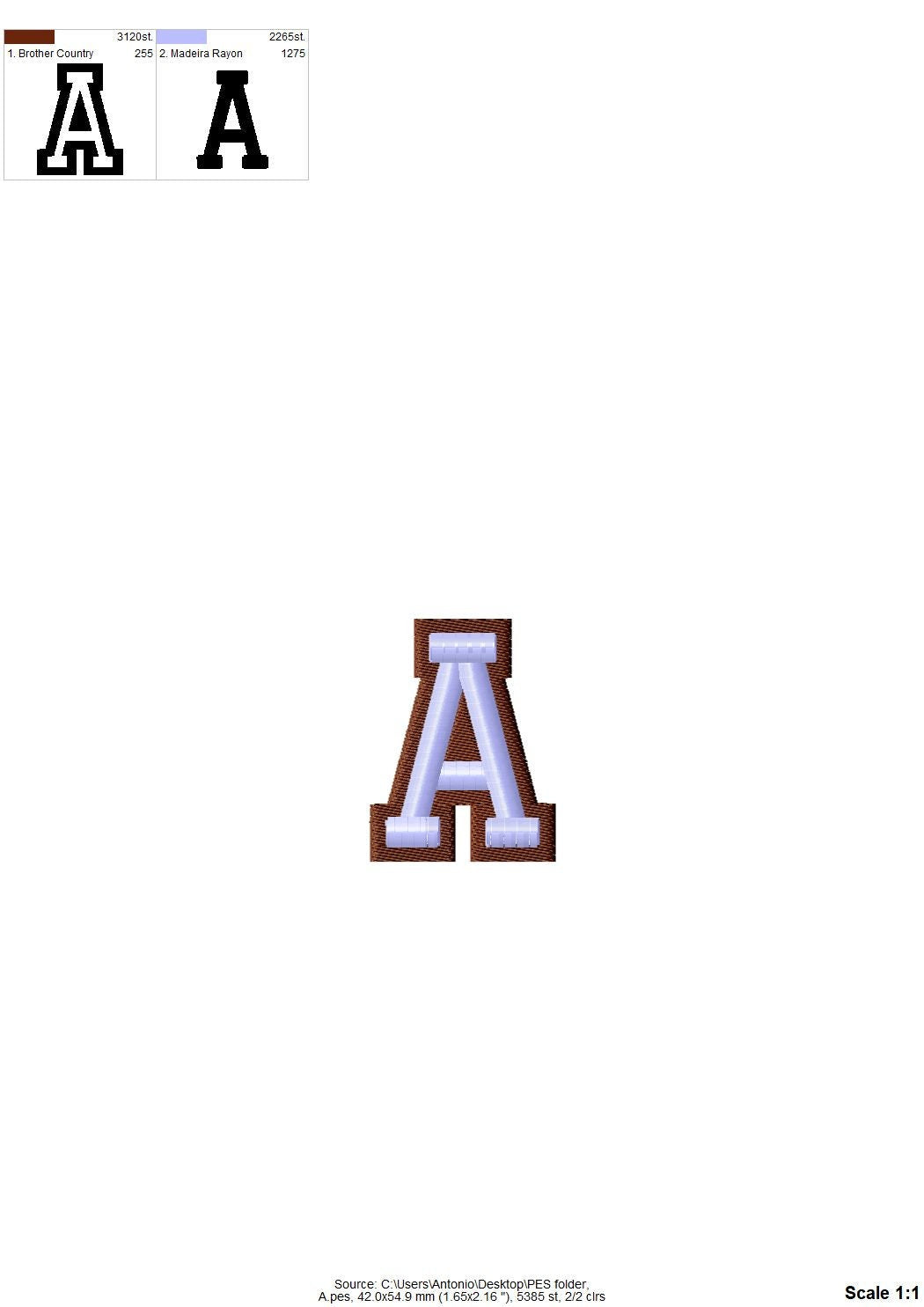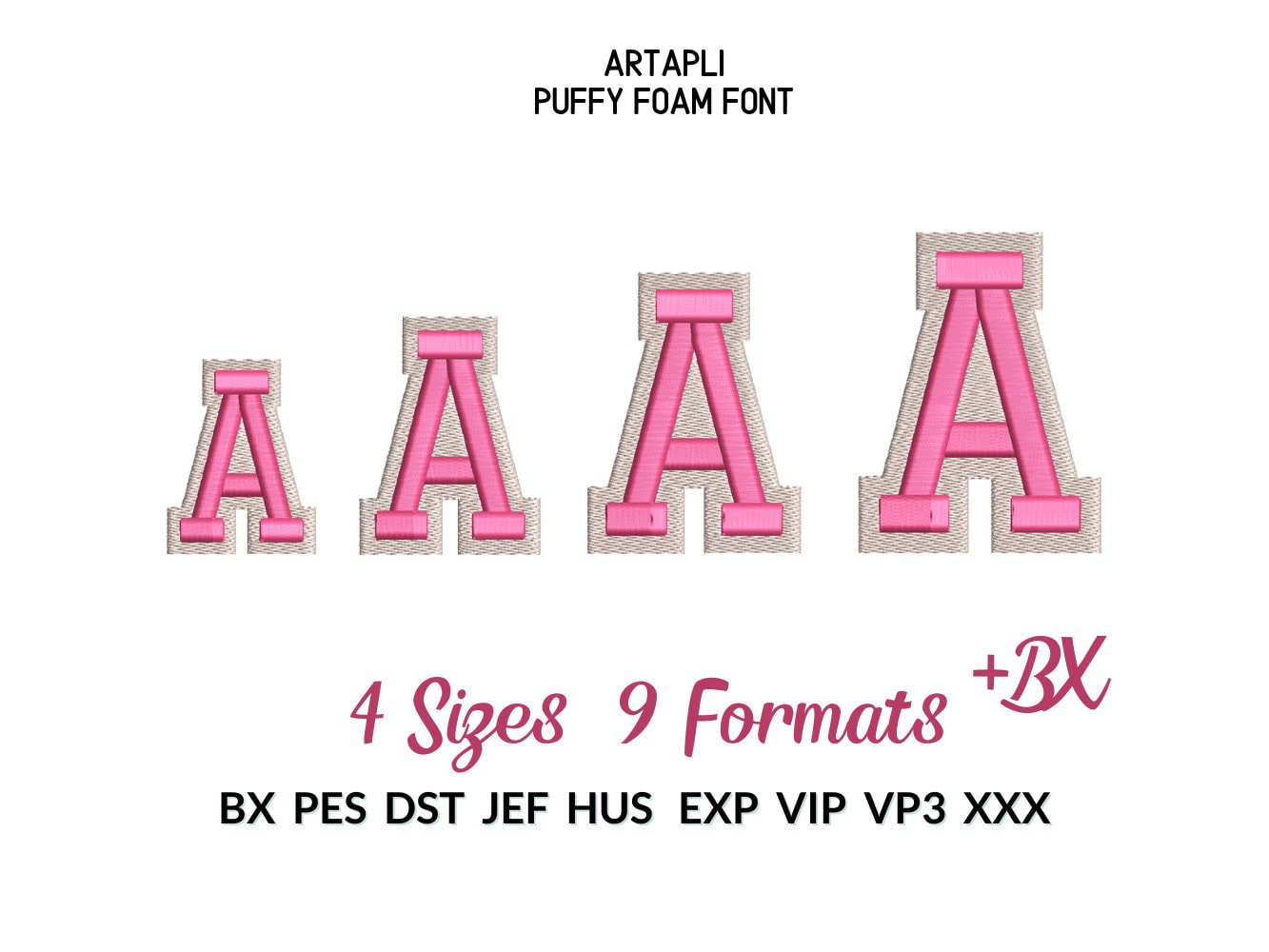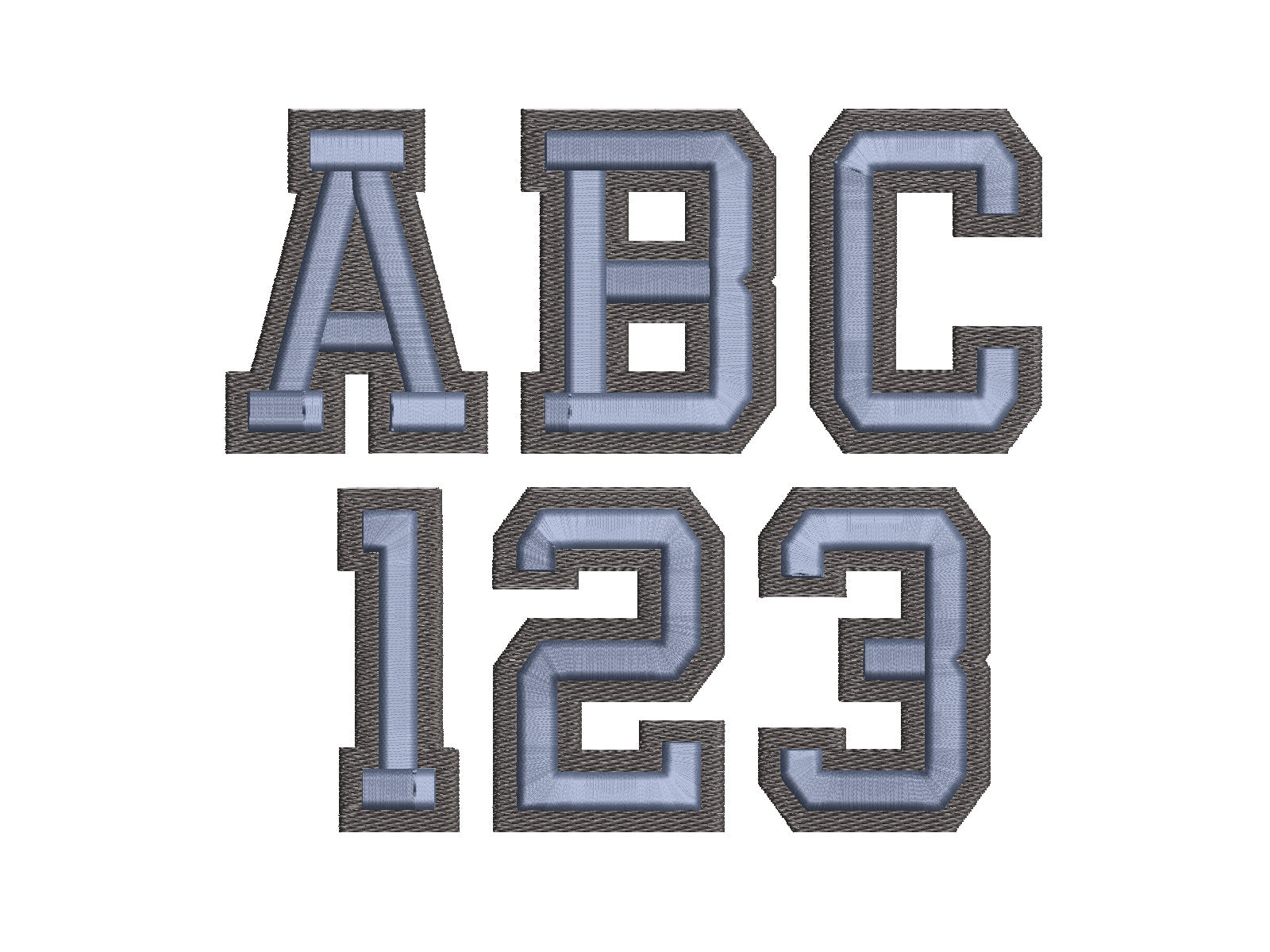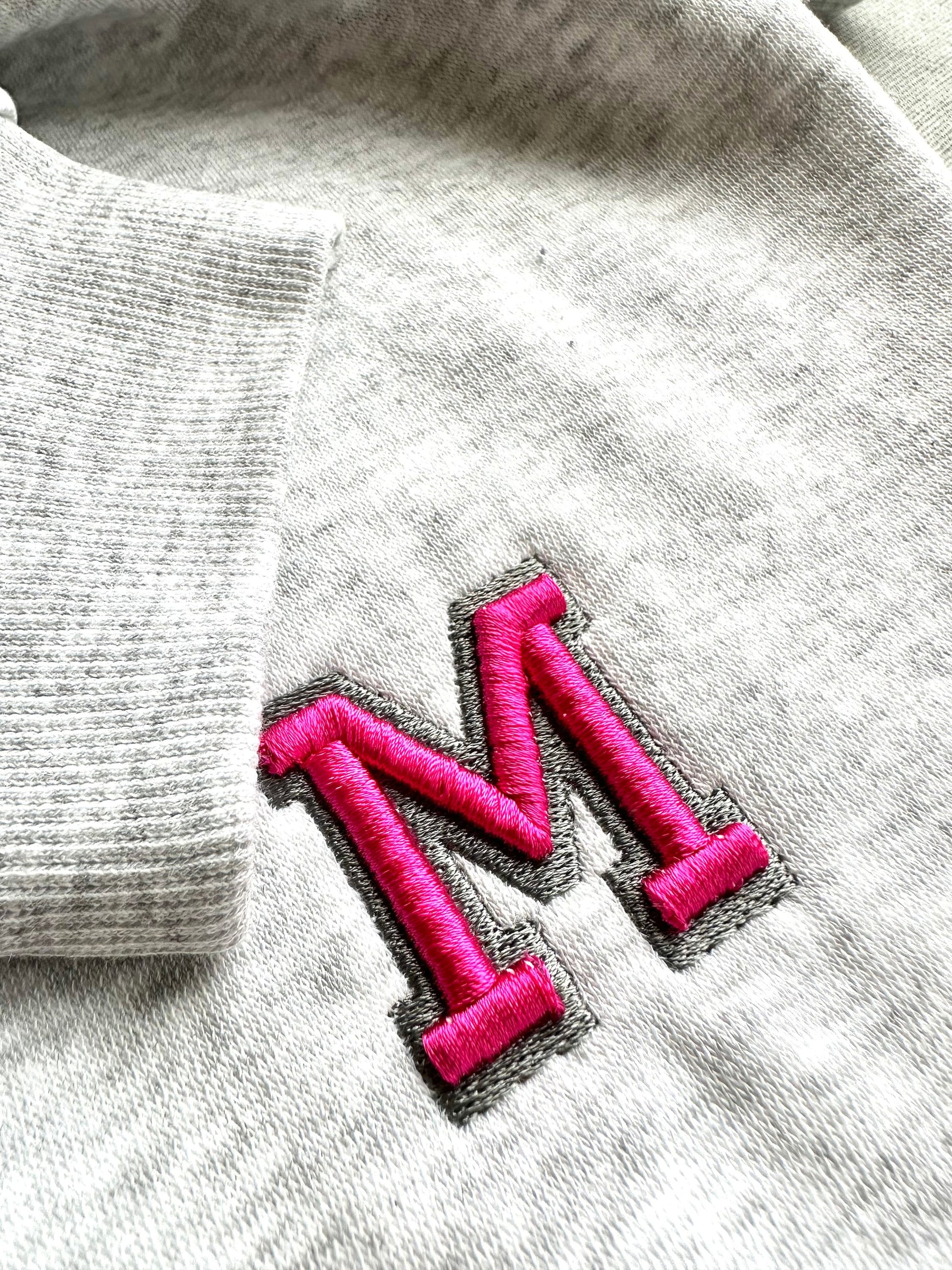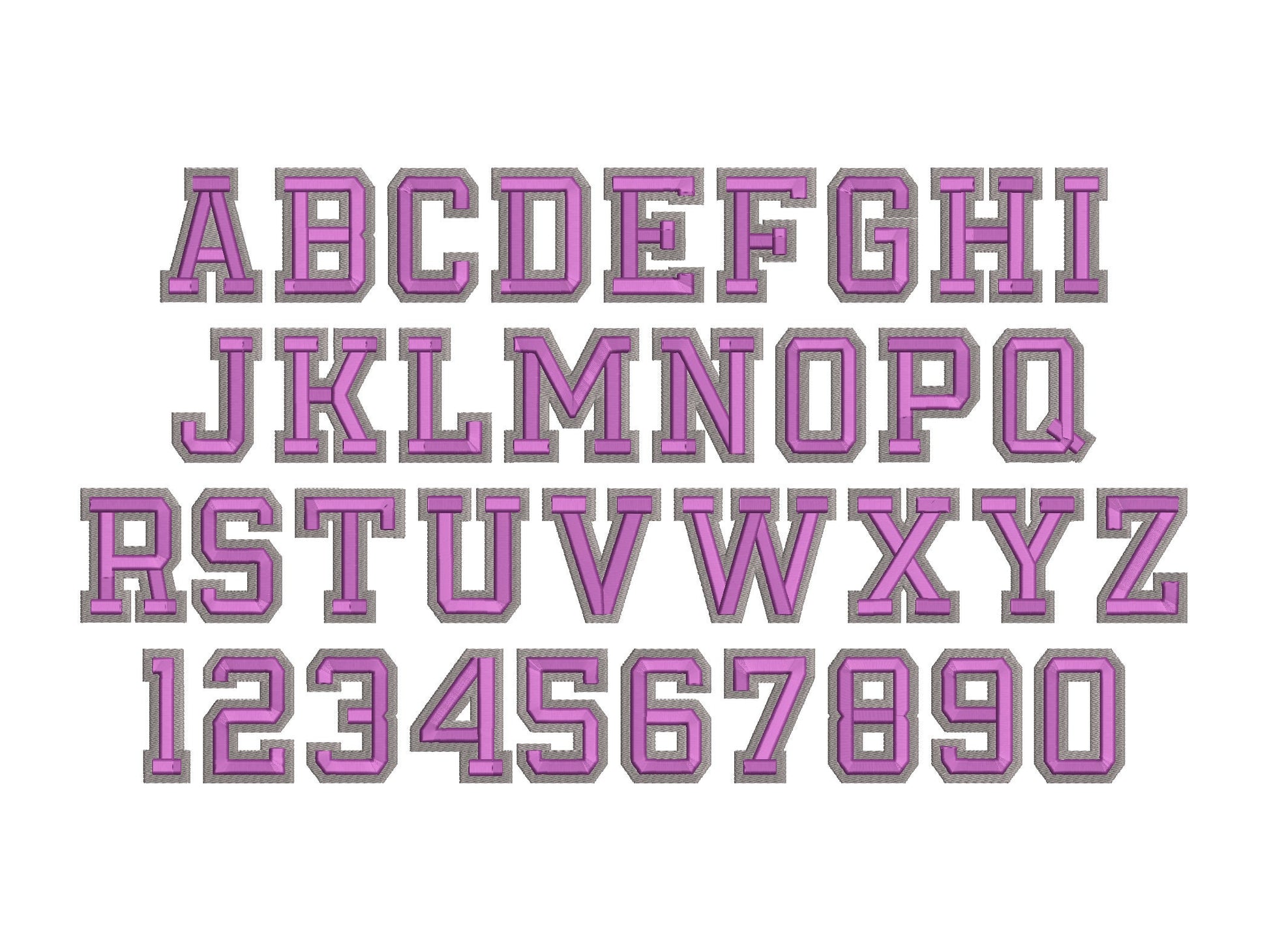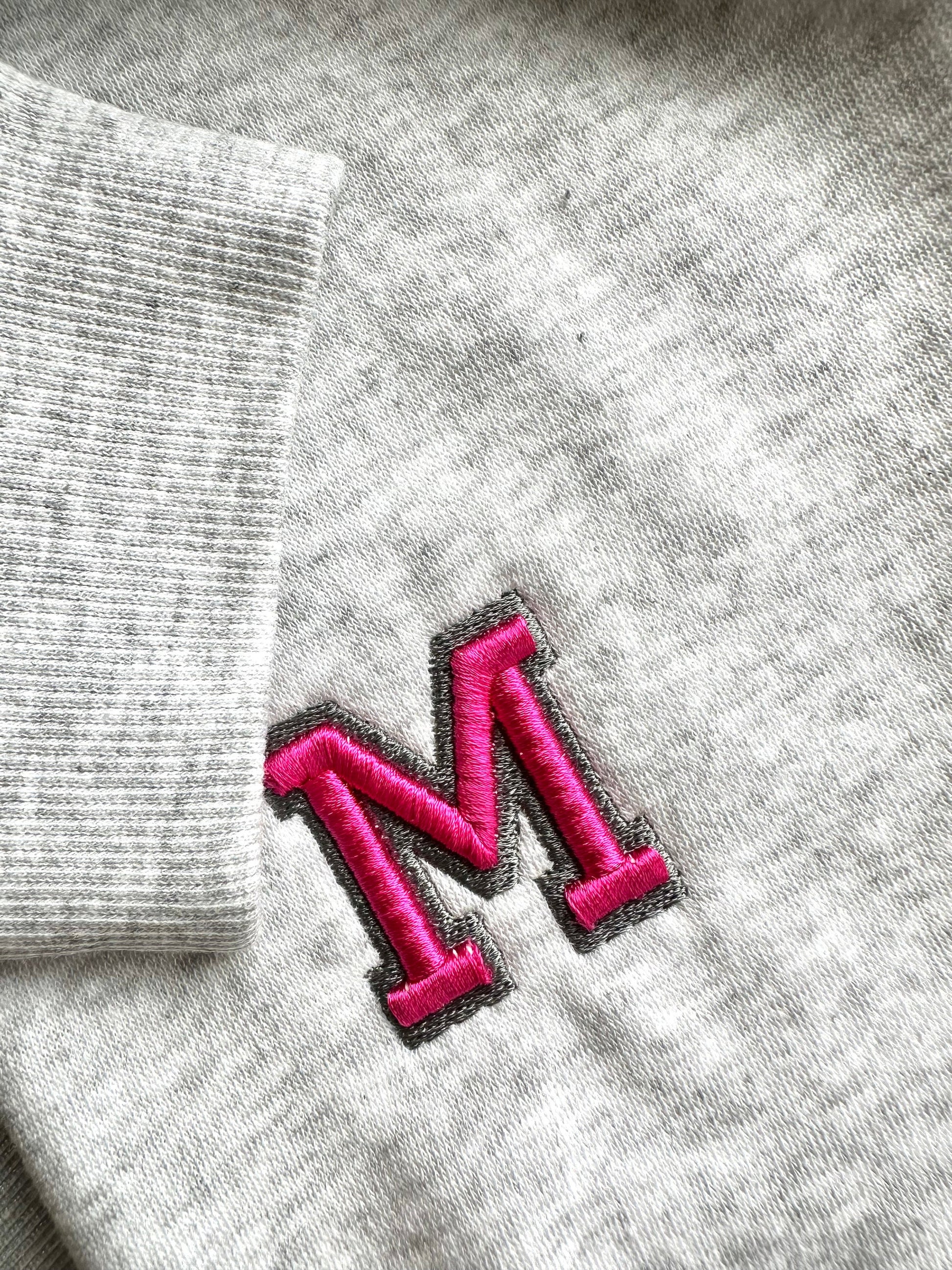
Puff and Fill Stitch 2 Color Font
Uppercase letters A to Z and numbers 0 to 9 in four sizes: 1.8, 2.2, 2.6 and 3 inches. You need 3 mm puffy foam.
- Puff and fill stitch 2-color block font
- Uppercase A-Z, numbers 0-9
- 4 sizes, 1.8 to 3 in